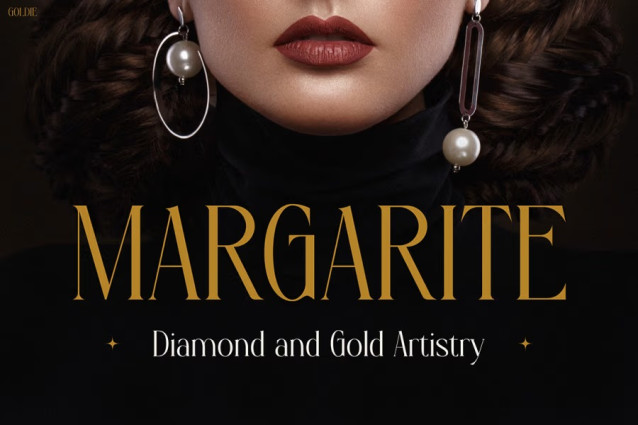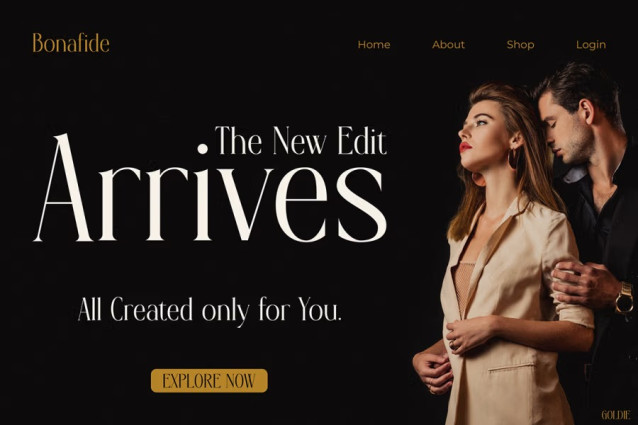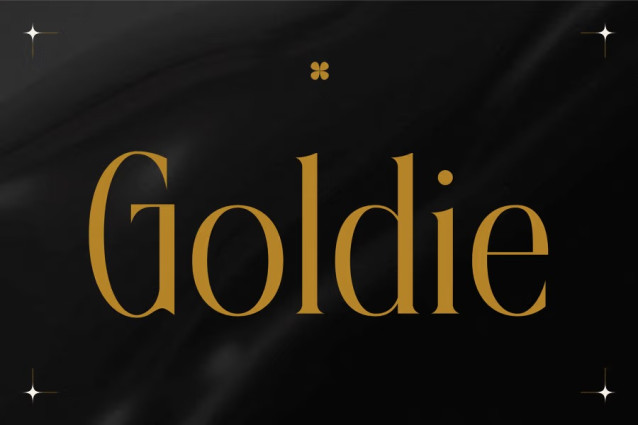
Goldie Font is a stunning serif typeface that blends modern charm with classic luxury. Each curve feels intentional, creating a design that’s both graceful and confident. Moreover, its soft strokes and balanced proportions bring warmth to every layout, perfect for stylish branding and editorial design.
Goldie captures attention through simplicity and elegance. Therefore, every headline or logo feels distinctive and refined. Its smooth transitions between letters enhance readability while maintaining sophistication. In addition, the font’s golden harmony between minimalism and beauty makes it stand out in any creative project.
Whether you’re crafting packaging, brand visuals, or digital content, Instagram Font Goldie ensures your design looks polished, expressive, and unforgettable. It adapts beautifully to both light and dark themes, allowing you to experiment freely with contrast and tone. As a result, it’s versatile enough for both modern luxury and timeless classic design styles.
Goldie suits designers who desire sophistication yet appreciate a friendly tone. It’s ideal for fashion houses, lifestyle bloggers, beauty brands, and creative studios seeking a refined visual identity.
Additionally, Goldie shines in logos, magazine covers, social media posts, invitations, or product campaigns—anywhere that elegance must be seen and felt. For influencers or small business owners, it also provides a sleek and confident voice through typography. Besides that, its clean lines and graceful forms make every message feel authentic, warm, and stylish.
Moreover, because of its high legibility and artistic flair, Goldie can elevate professional branding materials and high-end editorial projects alike. You can easily pair it with minimalist sans-serifs or delicate scripts for a harmonious typographic composition.
Upgrade your brand with Instagram Font Goldie, and let elegance lead the way. It’s more than a typeface—it’s a visual emotion sculpted with precision and care. Each letter radiates sophistication, helping your message shine with clarity and confidence.
Furthermore, Goldie allows your creativity to flourish while giving your designs a luxurious edge. So, if you’re ready to stand out, add this golden masterpiece to your collection today—and let your brand glow with timeless beauty.